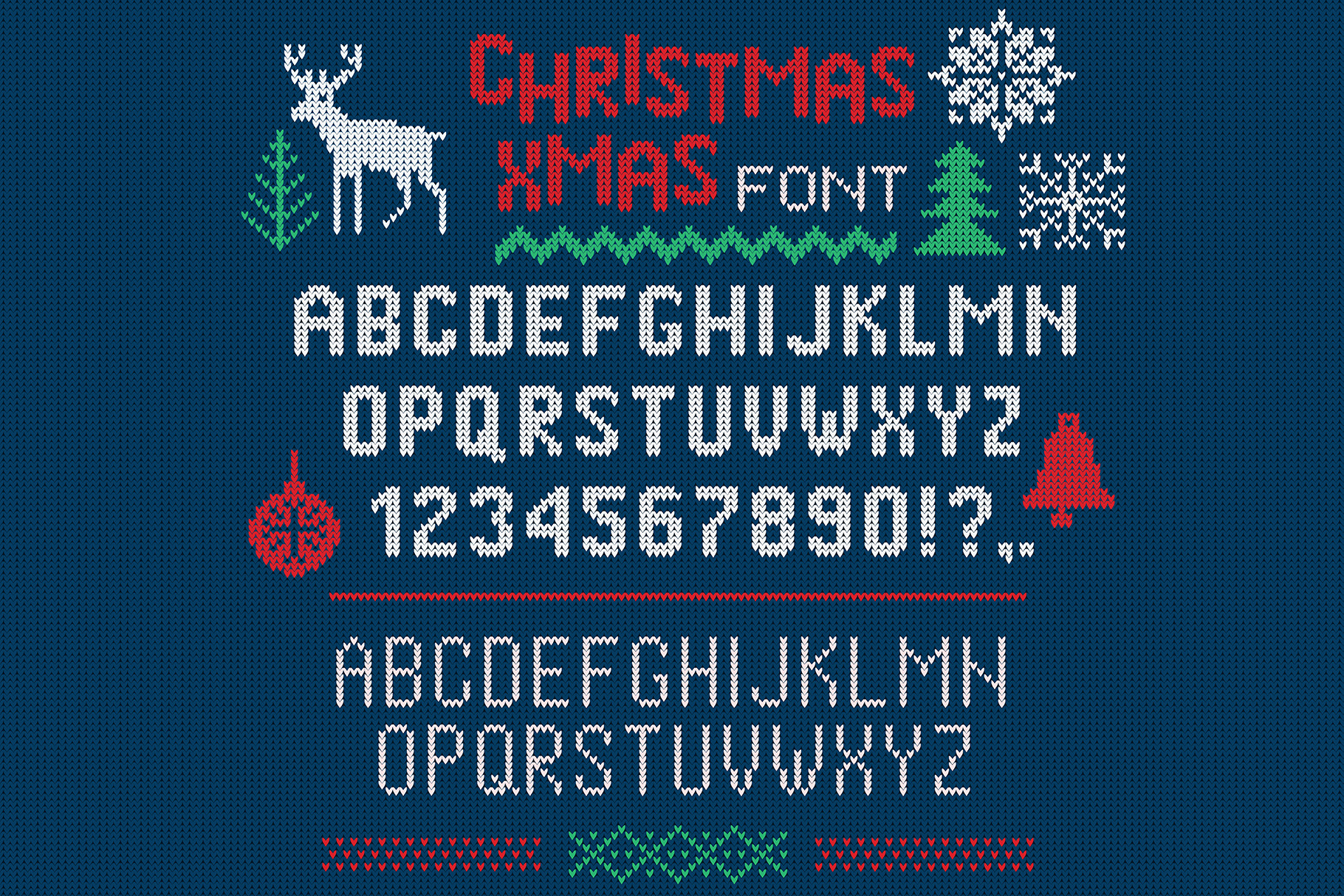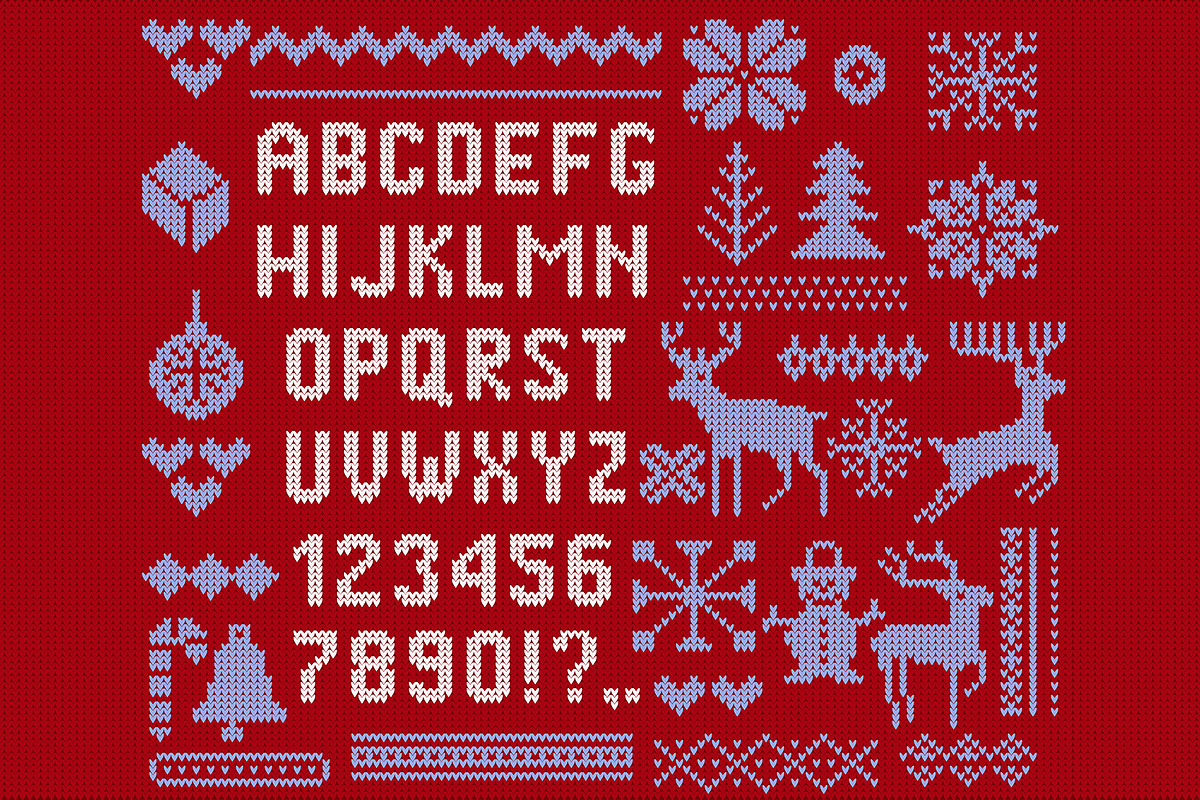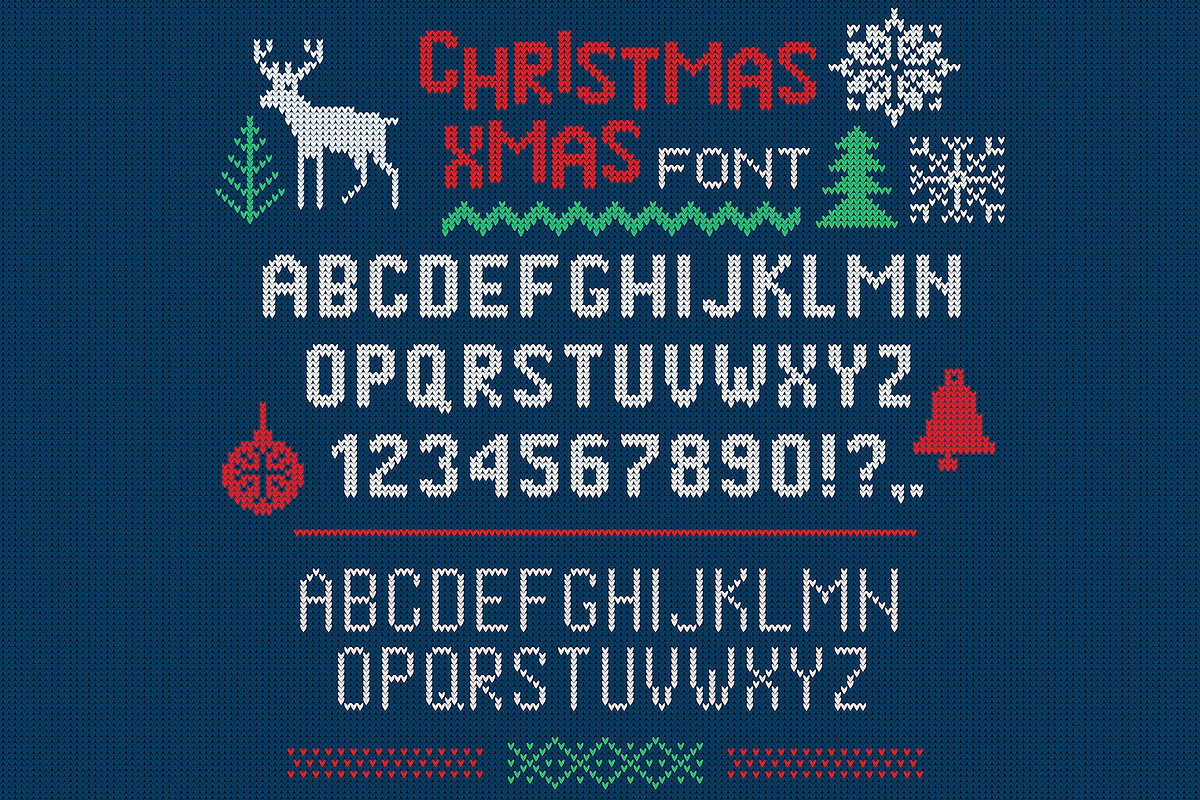
Christmas bold, thin font and number
Christmas bold, thin font and numbers. Knit borders, lettering, xmas elements. Sweater colored pattern. Vector ornament with type, snowflake, deer, bell, tree, snowman. Design knitted blue, red print.